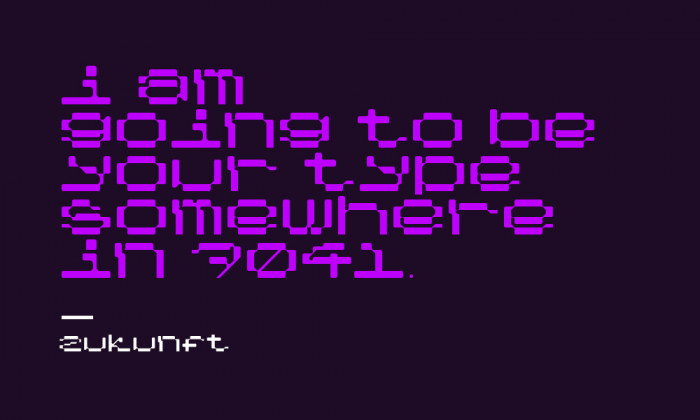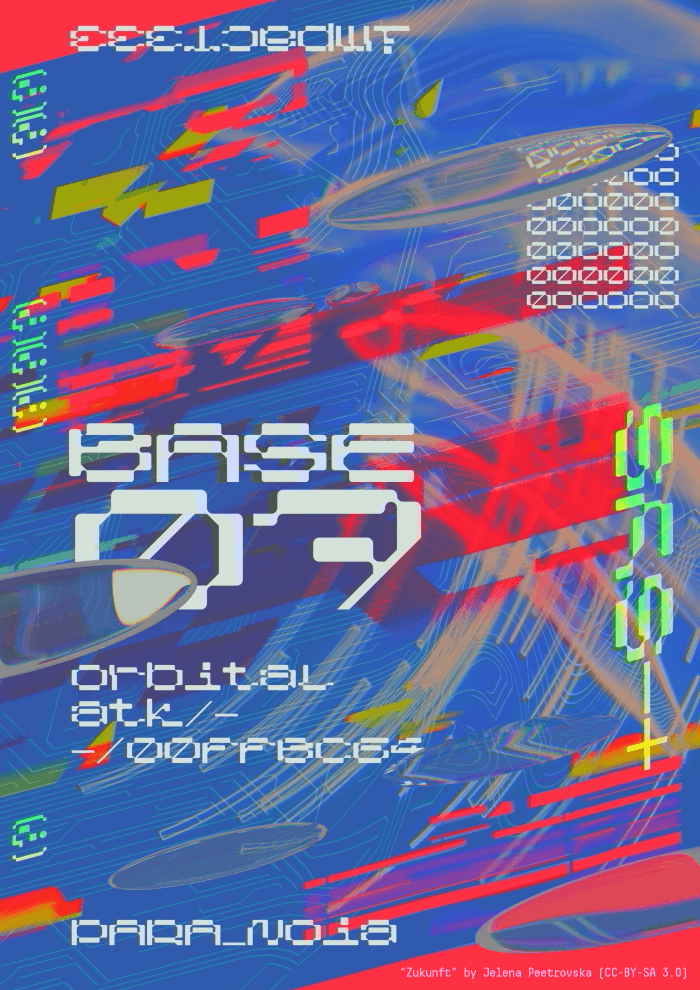
Very interesting shapes here, but the legibility is often hard.
There is so much in this font, very punk, future-punk, I like it. But I think you can pay attention to u and l. I Wish you good luck and win!
I really like this font. I have no idea how I missed this one among all the other FutureComp entries. It's extremely unique and resonates with me on a deep level. Those imperfections add to its character. It might even be my #1 favorite from the entire competition. So I made this poster/sample pic. I think it has the same vibe as the typeface itself.